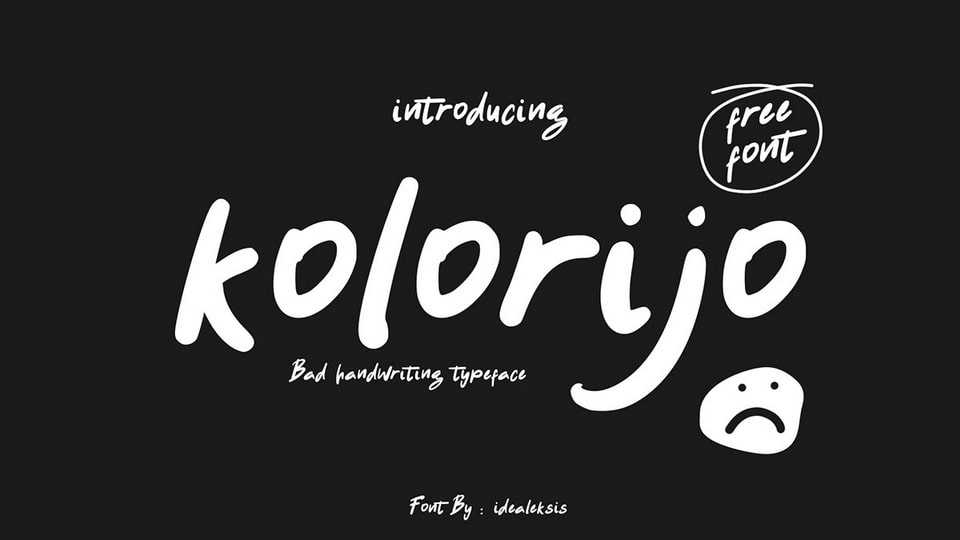
Download Kolorijo font, a natural and dynamic handwritten typeface that captures the lively essence of personal expression. It features fluid, spontaneous letterforms with varied strokes and organic curves.
Designer: Ideal Eksis